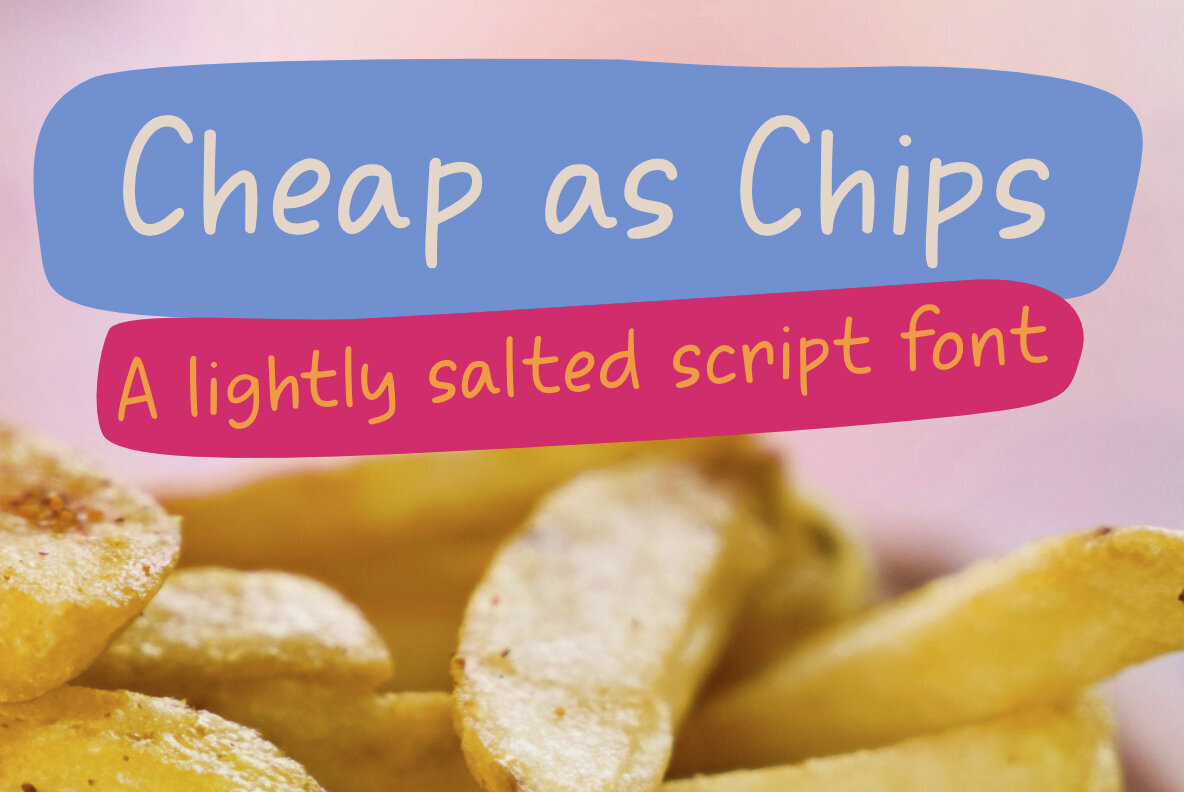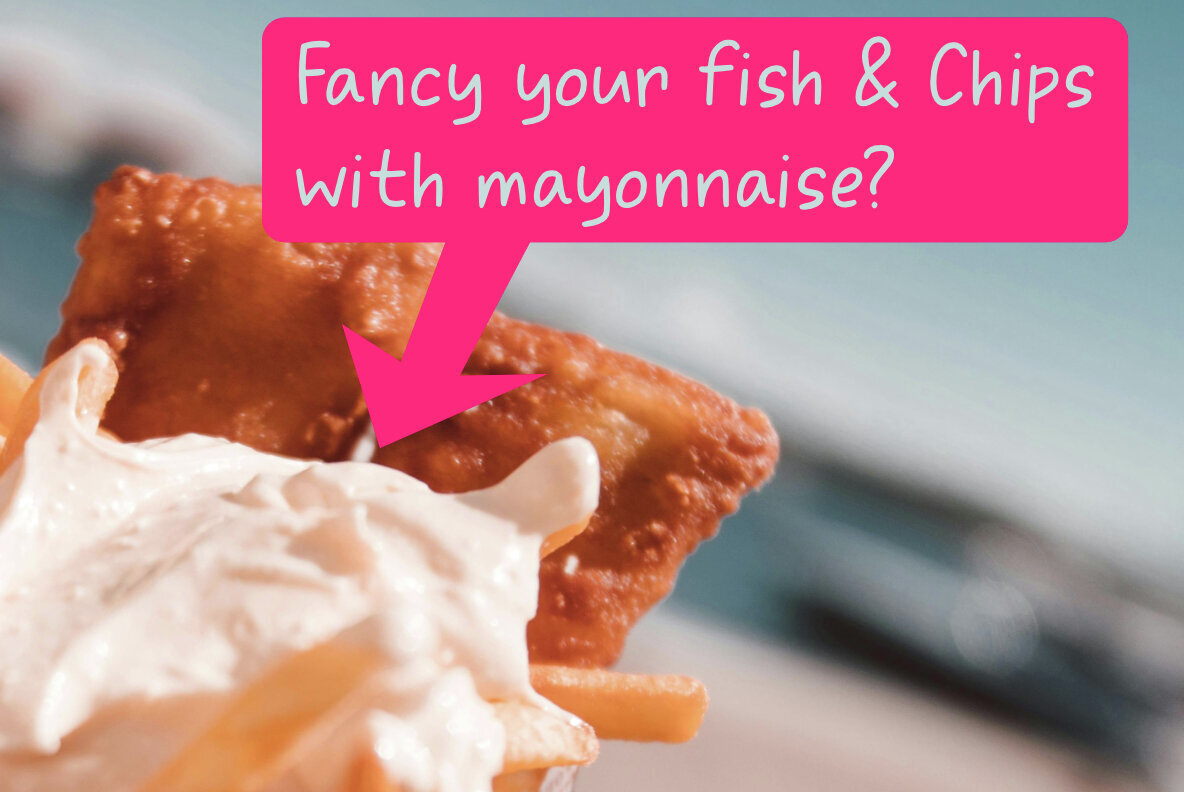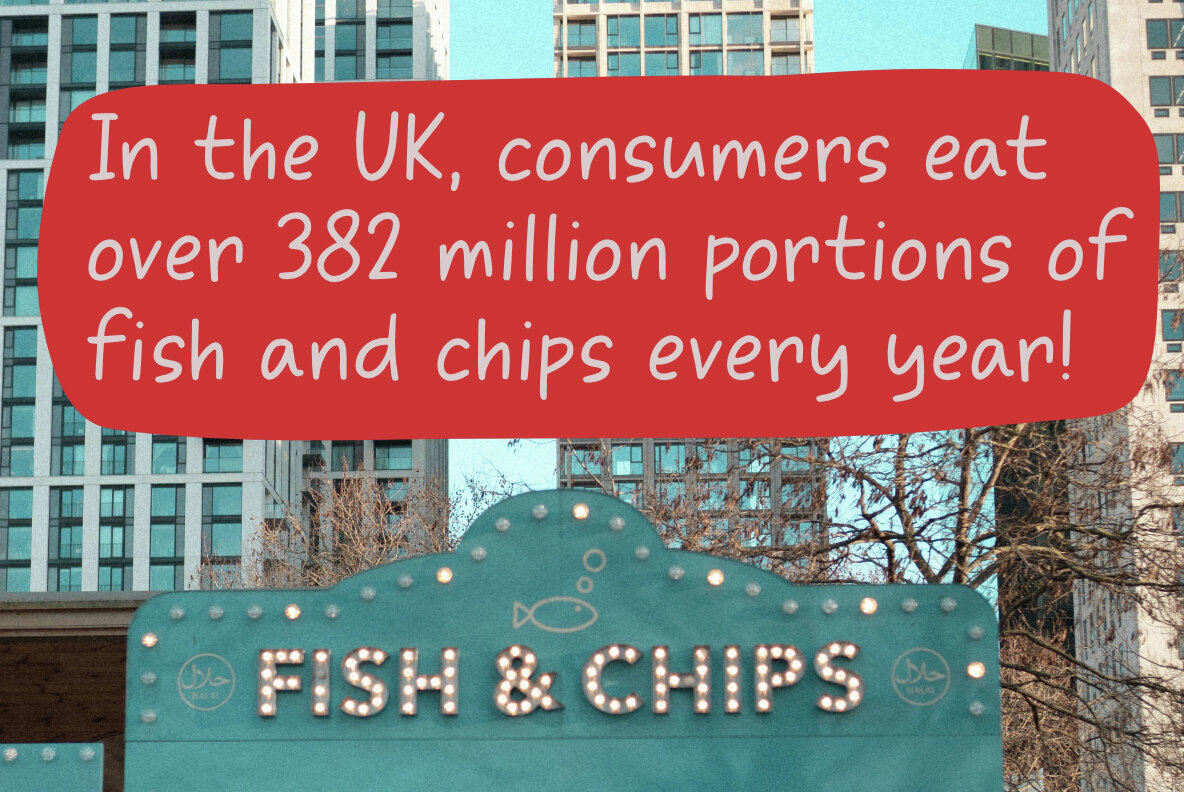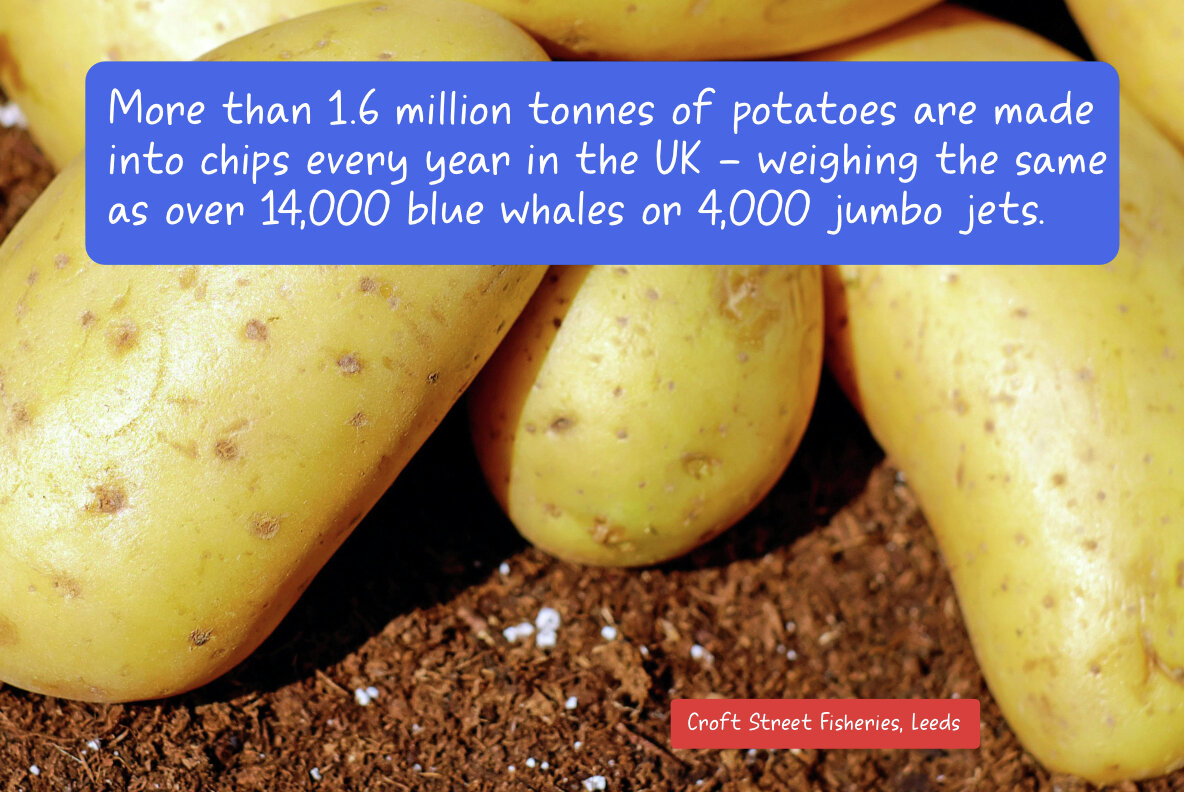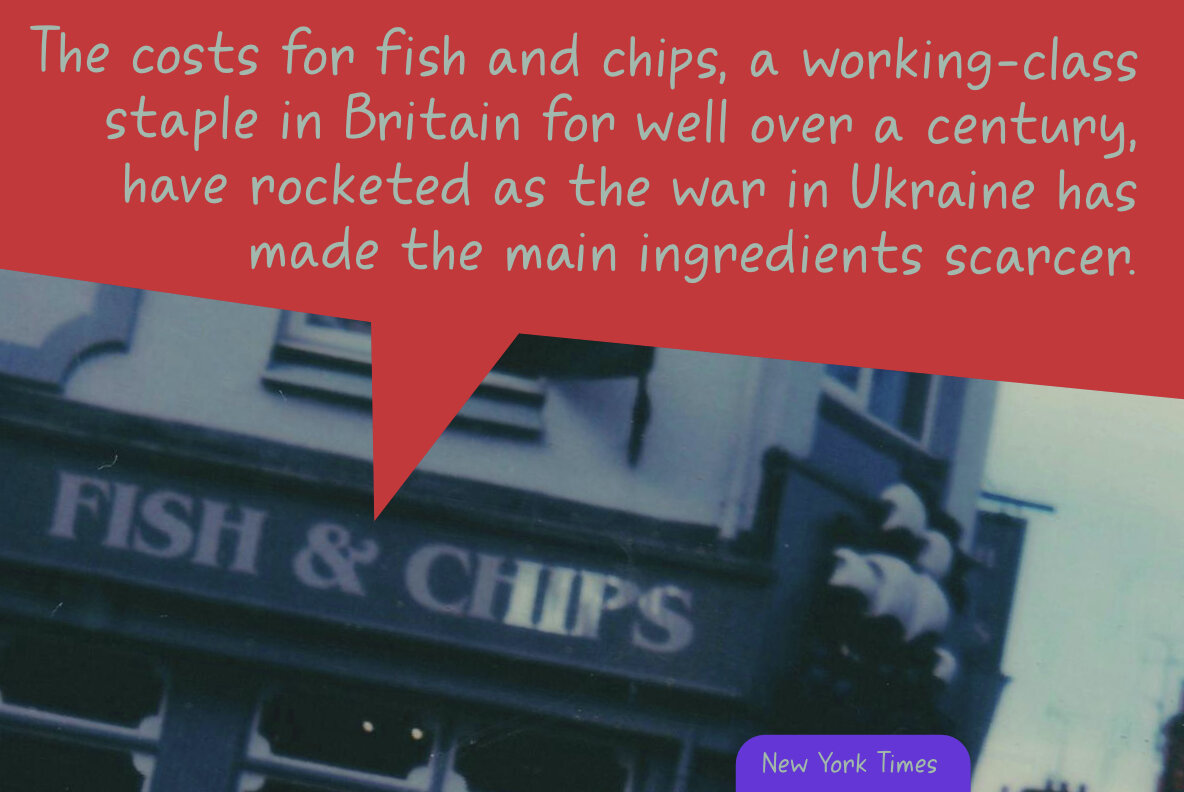
Cheap As Chips Font
Cheap As Chips font by Kitchen Table Type Foundry is a versatile typeface inspired by the classic British snack. Despite its name, this font is an affordable choice that offers a unique and engaging style suitable for various design projects. Its playful and approachable nature makes it a great addition to any designer's toolkit, providing a distinctive look without an extravagant cost.
This font seamlessly complements a wide range of designs, fitting well with branding, advertising, and playful design themes. Cheap As Chips delivers a charm reminiscent of the British culinary scene without the actual price tag of fish and chips in today's market. A go-to option for designers seeking a font that is both economical and effective, it remains a reliable choice that pairs well with diverse creative needs.